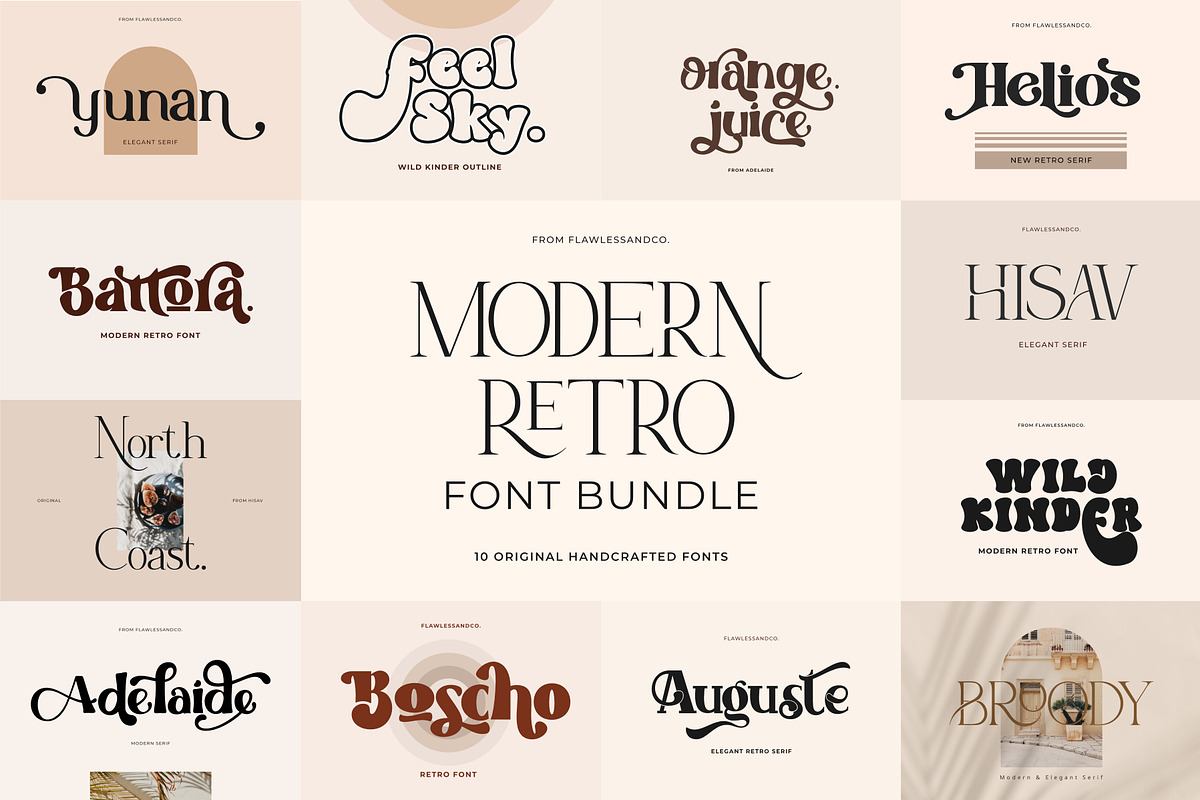
Modern Retro Bundle Free Download is a vibrant collection of fonts that blend nostalgic 70s, 80s, and 90s aesthetics with a clean, modern twist. This bundle includes a variety of type styles—from groovy serifs and chunky scripts to funky display fonts—making it perfect for posters, logos, packaging, t-shirt designs, album art, and social media content that craves retro flair.
Each font in this bundle captures the fun, expressive spirit of retro design while keeping things crisp and contemporary. Whether you're aiming for vintage disco vibes or bold Y2K energy, this bundle gives you endless creative options. You can test all fonts for free, but a commercial license is required for any business or monetized use.
Turn back time in style with Modern Retro Bundle Free Download and bring a wave of throwback charm to your next project. It's a must-have pack for designers who love to mix nostalgia with bold, trendy aesthetics.